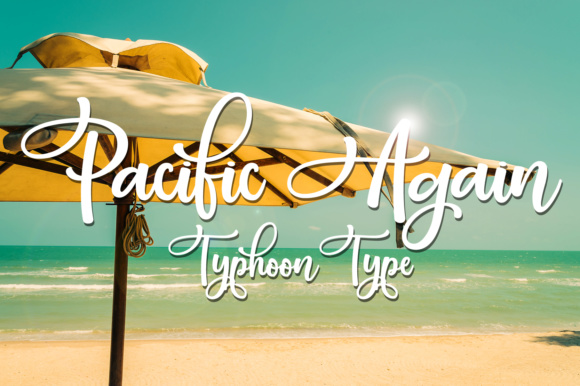
Pacific Again is a beautiful display font with a nod to vintage signage typography, ideal for use in themed projects. This cursive script font works well in a wide range of styles, and adds a retro vibe.